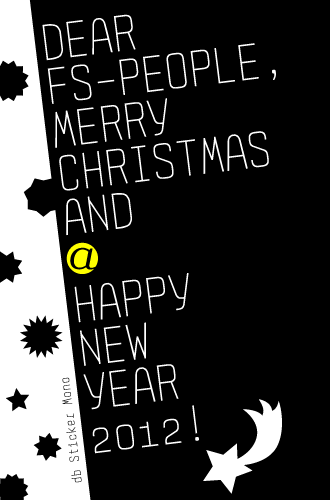
More awestruck than fontstruct! ;-)
Very impressive.
Beautiful.
Ultra slick and contemporary. My only beef would be the M,W and numbers (I like them all on one level), but that's just my personal taste. My vote gives it a well earned and very cool 10/10. Excellent work.
I like the M and W just fine, but I agree about the numbers. I think they are great in and of themselves, but within the set they may need some tweaking. Possibly, make the 0, 1, and 2 and tiny bit taller and make the rest a bit shorter?
Very clean,I like it. But I think the numerals should be taller. That's just in my opinion, you can make it in your own way. 10/10 For you.
Concerning the numbers I agree with you. That's exactly the problem I have. Maby it's better to replace the lowercase in uppercase numbers.
It seems I was the only one that liked the old style numerals!
The new lining ones are good too, but less distinctive. Maybe you could've tried an hybrid version (like Georgia). You could also put the former ones somewhere as alternates.
Nice work! 10/10
The new numerals are good.
I did like the old style numerals, I just thought they looked a little "off" compared to the rest of the set. Maybe you could put them back in as alternates?
Have you thought of having the base lines of the horizontal lined characters, like E,B,I,L,i,f,l,r,z etc slightly above the base line, or the other letters slightly below the base line?
Also you could adjust the x-height of those with mid and top horizontal straight lines, like E,F,i,z, etc. At the moment the fully curved letters like c,o etc look like they're floating above the base line. I think they may look better if they were increased in depth and height by one brick either way, depending on the glyph.
This may be my all-time favourite mono font. It's amazing.